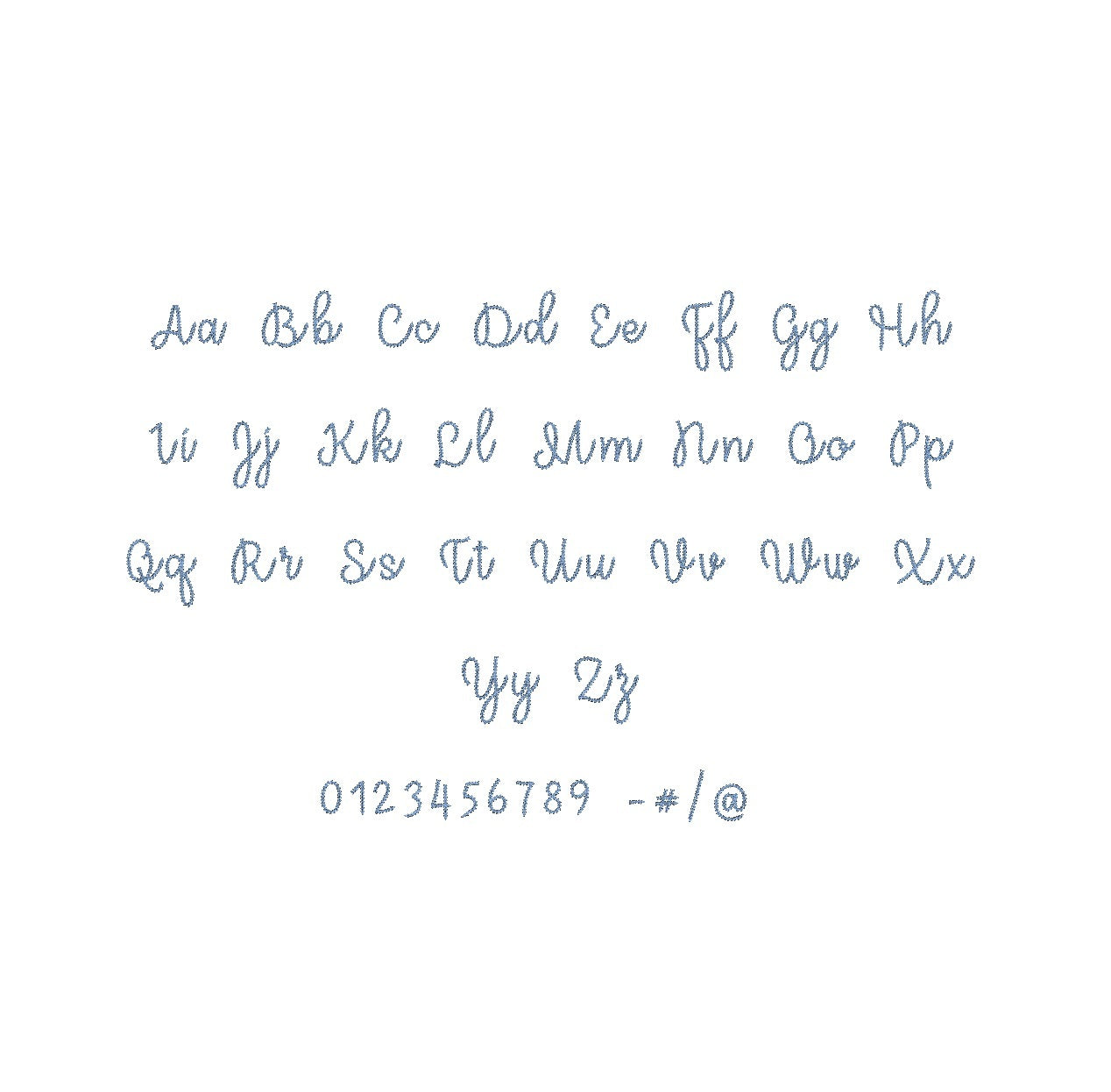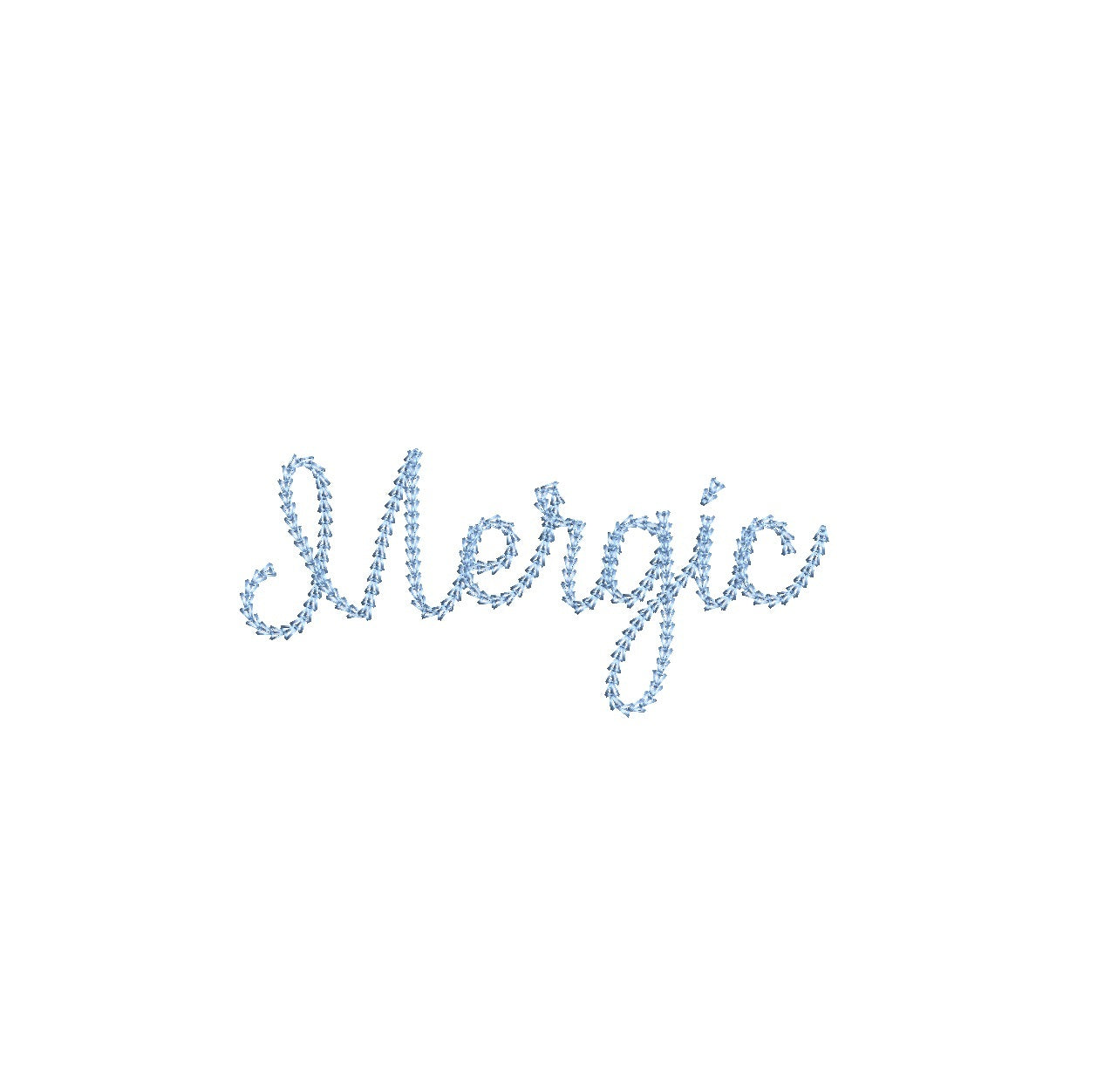
Elevate your embroidery endeavors with the Mergic Chain Stitch ESA font, designed to seamlessly integrate with Wilcom Studio e4.5.6 and Hatch 3 versions and higher. Infuse your designs with captivating chain stitch intricacy, adding a touch of sophistication to each creation. Skillfully craft monograms, labels, and embellishments, effortlessly enhancing your embroidery projects. Experience a smooth integration process, unlocking boundless creative potential. Download the Mergic Chain Stitch ESA font now to witness your designs flourish. Transform ordinary embroidery into extraordinary artistry, as each piece becomes a testament to your creativity and finesse. Elevate your projects with this exceptional font.